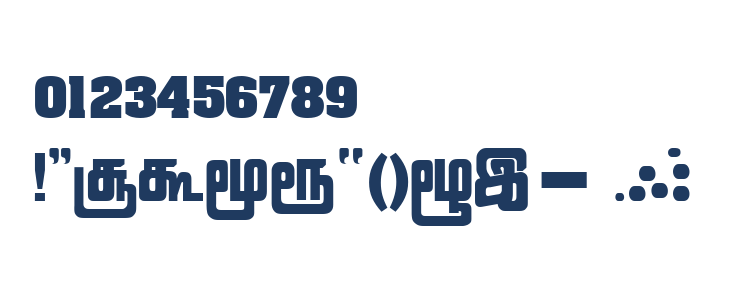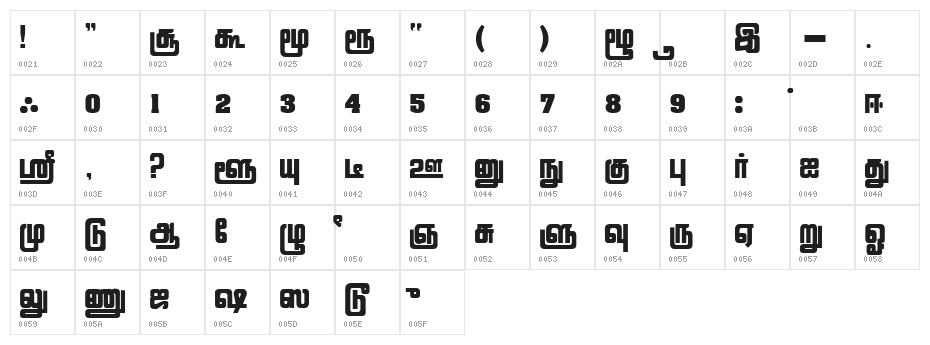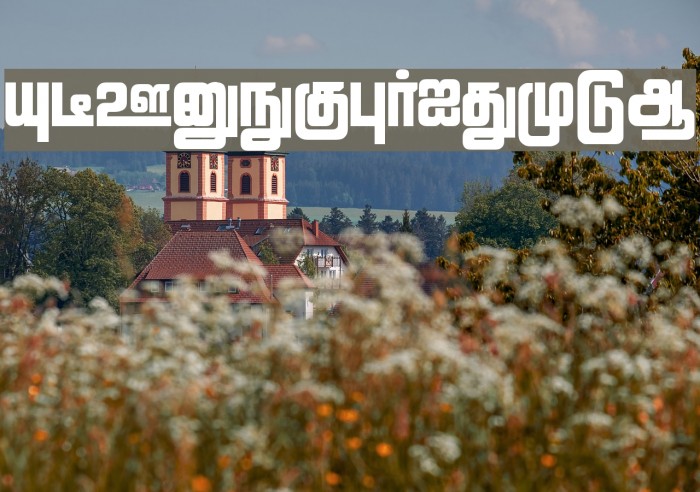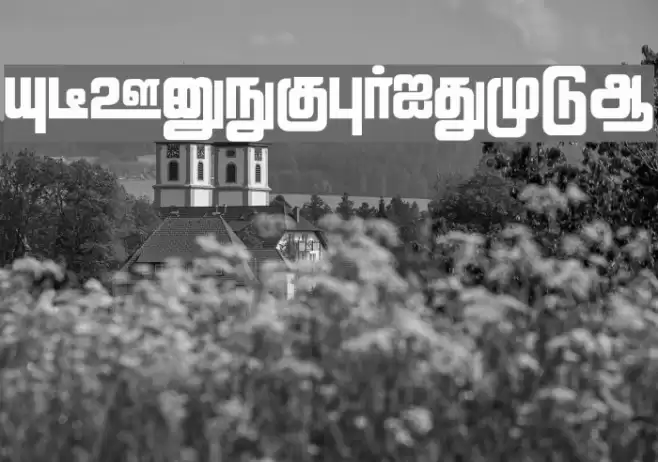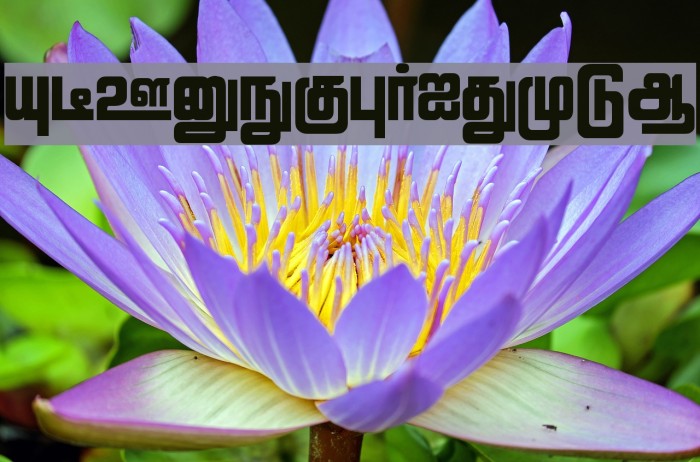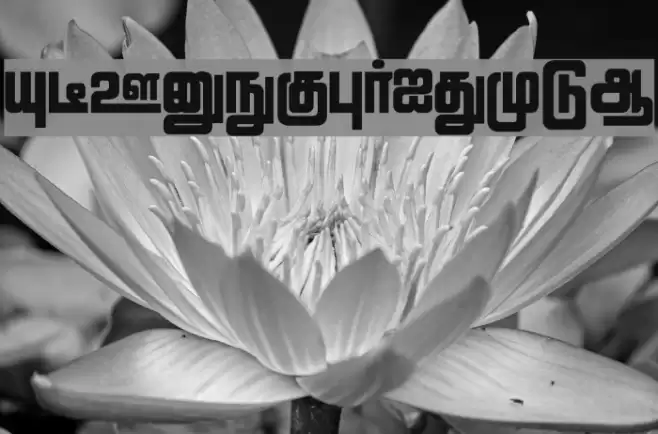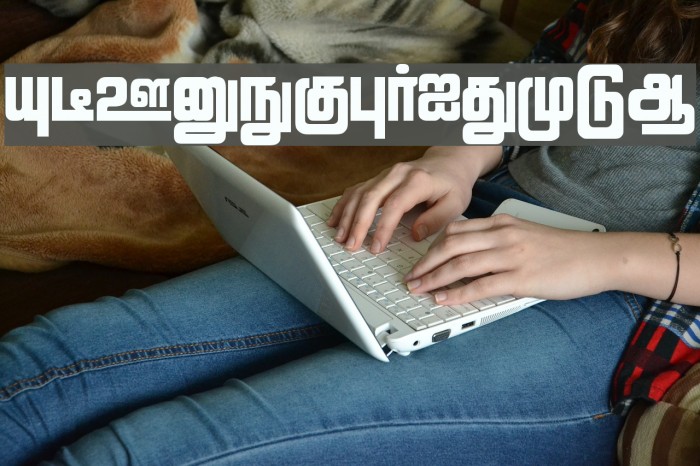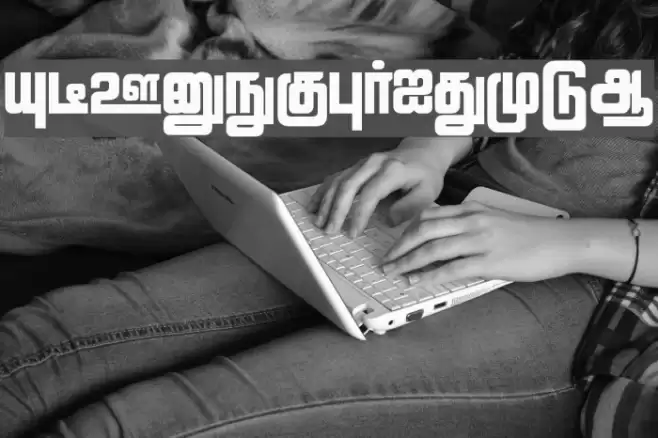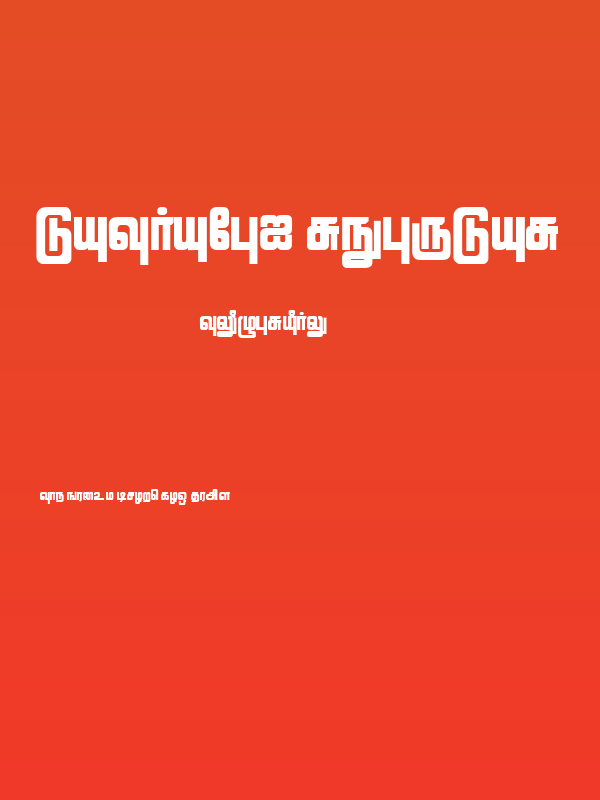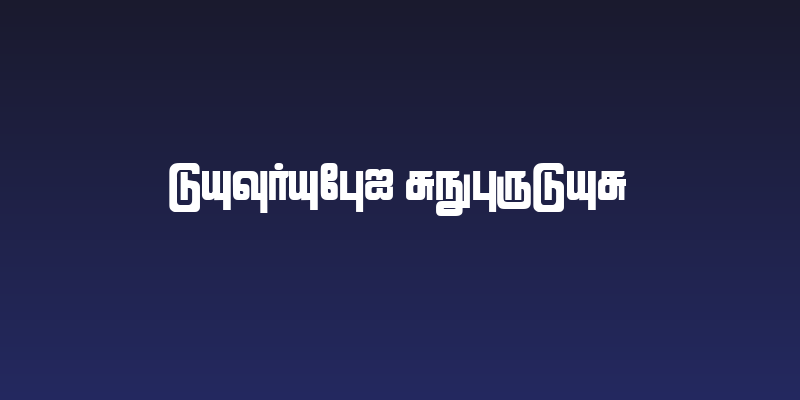
Lathangi Regular Font
Lathangi Regular Description
This font features a bold and robust design with strong, thick strokes that convey a sense of authority and impact. The characters are uniformly wide, giving the text a balanced and cohesive appearance. The font is highly legible, making it suitable for various display purposes. Its geometric shapes and clean lines contribute to a modern and professional look. The numerals are distinct and clear, ensuring readability in any context. Special characters are well-integrated, maintaining the overall aesthetic of the font. This typeface is versatile, capable of making a statement in both digital and print media.